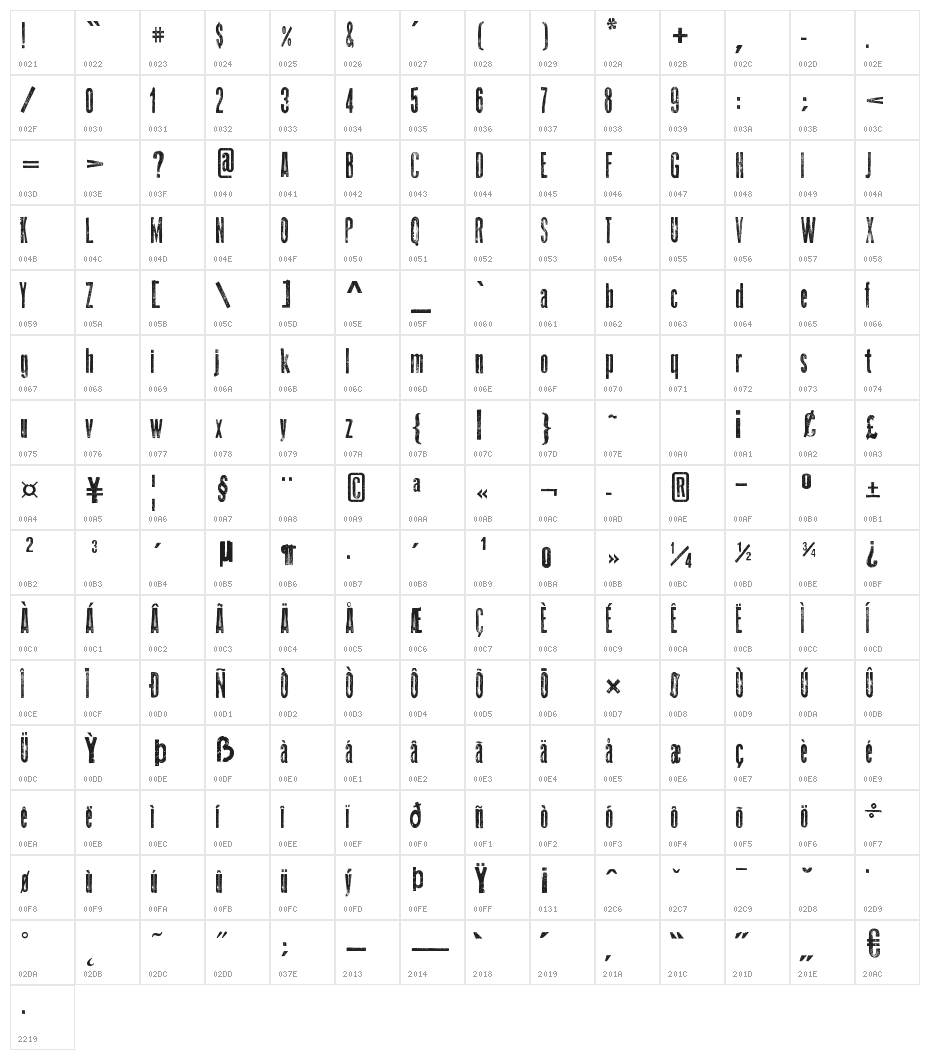
Thin Press Font
Thin Press Description
This font features a distressed, textured appearance reminiscent of vintage printing techniques. The characters are bold and slightly condensed, with a rough, worn-out look that adds a sense of history and authenticity. The uppercase and lowercase letters maintain a consistent style, with the uppercase being slightly taller and more pronounced. Numbers and special characters follow the same distressed aesthetic, making them suitable for creative and artistic projects. The font's unique style is perfect for designs that require a rustic or industrial feel, such as posters, album covers, or branding for artisanal products.
| Proposed Projects | Ideal for posters, album covers, branding for artisanal products, and vintage-themed designs. |